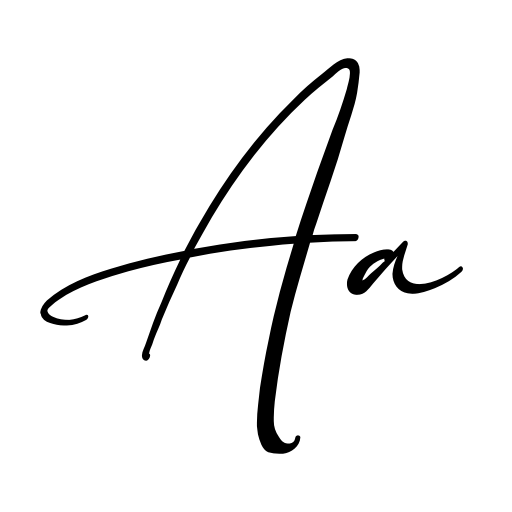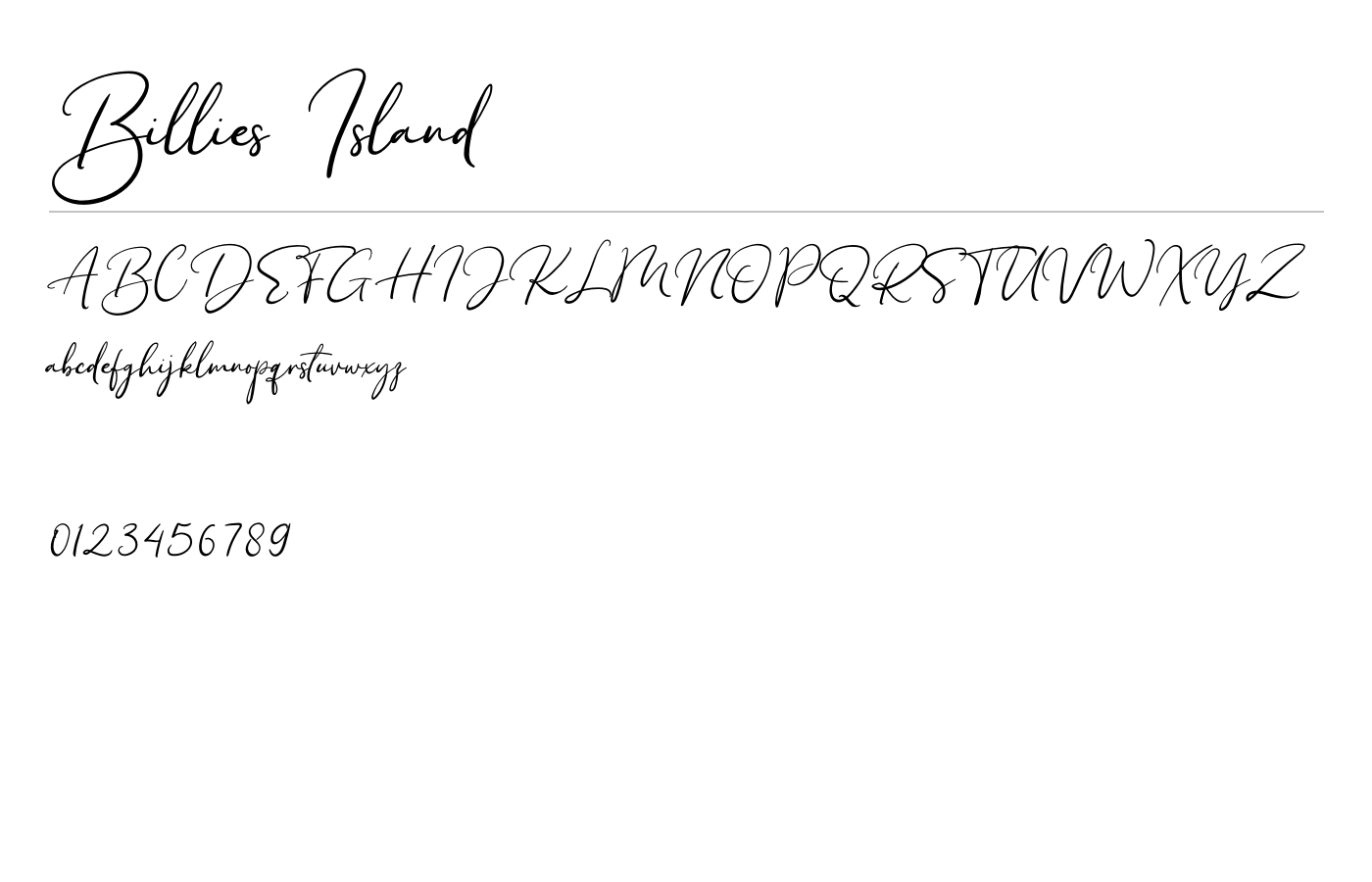
Billies Island is an elegant, handwritten script font characterized by its delicate, flowing strokes and graceful curves, giving it a refined and personal touch. Its slender weight and natural, slightly irregular forms make it perfect for adding a sophisticated yet approachable feel to invitations, branding, and fashion-related designs. This font works especially well in creative projects where a stylish, artistic appearance is desired.
Billies Island Font